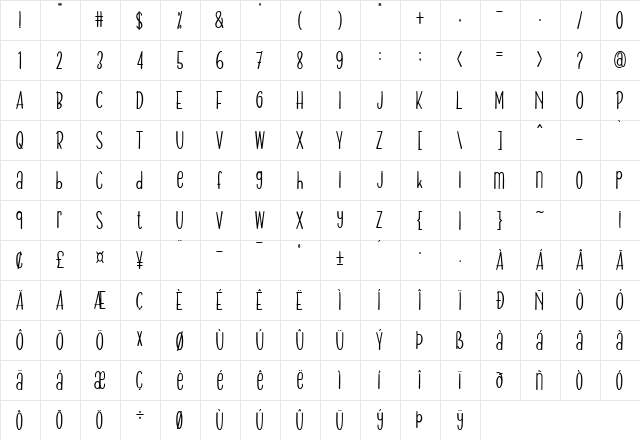
Doctor Heroes Regular
| Foundry | ZainStudio |
| Designer | ZainStudio |
Design Context for Doctor Heroes Typeface
Doctor Heroes offers clean, dependable letterforms without strong stylistic allegiance, making it a practical choice for designers who need flexibility.